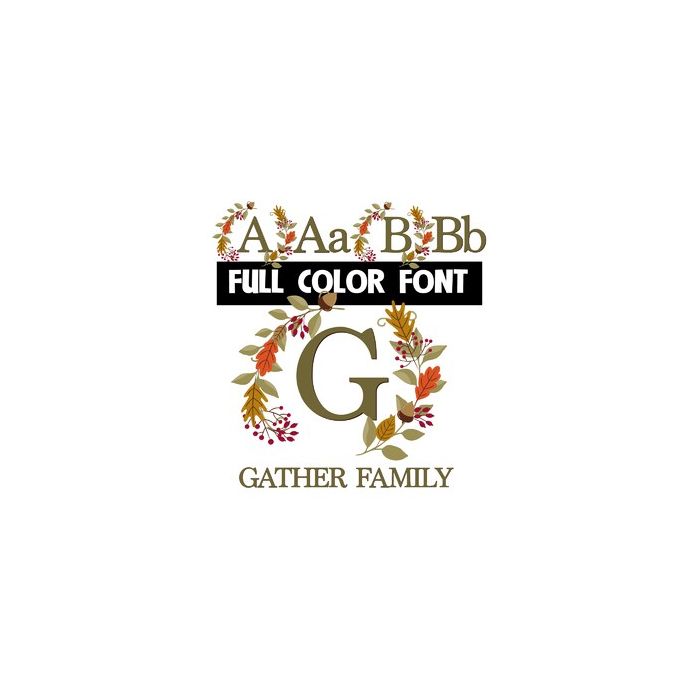
Gather Family Monogram Color Font
This full-color font features leaves, acorns, and more in a frame around capital letters making it great for a fall-themed monogram. The lowercase is actually an uppercase but w/o decor and a second real lowercase is available through alt options in your system's glyph map. This font works best for titles, displays, posters and more. Please note color fonts will show as black in non compatible programs. This font type is compatible with Silhouette Studio.